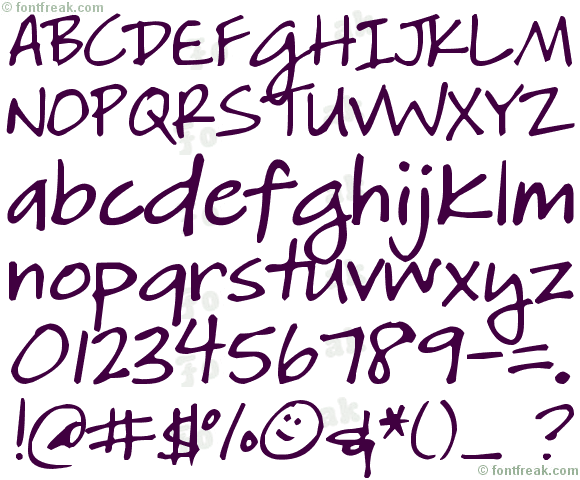
DJB HeatherG
About DJB HeatherG
DJB HeatherG by Darcy Baldwin is a captivating handwritten typeface that effortlessly blends elegance with a casual aesthetic. This font, released in 2007 and available under a freeware license, features a unique style characterized by its playful strokes and organic forms. The stroke weight varies subtly, providing a sense of movement that makes each letter appear lively and approachable. The contrast in line thickness enhances its charm, while the generous spacing between characters ensures legibility, making it an excellent choice for a variety of applications.
DJB HeatherG is particularly well-suited for wedding invitations, where its romantic flair can evoke feelings of joy and celebration. Additionally, it shines in crafting personalized greeting cards, adding a heartfelt touch to any message. The font also works wonderfully for branding small businesses, especially those in the creative sector, as it conveys a friendly and informal vibe. Restaurant menus can benefit from its inviting appearance, enticing customers to explore the offerings. Furthermore, content creators can utilize DJB HeatherG in social media graphics, enhancing engagement with its appealing look.
The target audience for this font includes graphic designers, small business owners, and content creators who seek to add a personal touch to their projects. Its versatility ensures that it can enhance various design styles while maintaining a unique identity.
What sets DJB HeatherG apart is its ability to evoke warmth and approachability, making it a perfect choice for designs that aim to connect with the audience on a personal level. The DJB HeatherG font free download allows users to incorporate this delightful typeface into their projects without any cost, making it accessible for all creative needs. Whether for personal or professional use, DJB HeatherG is a standout option that brings a touch of charm to any design.